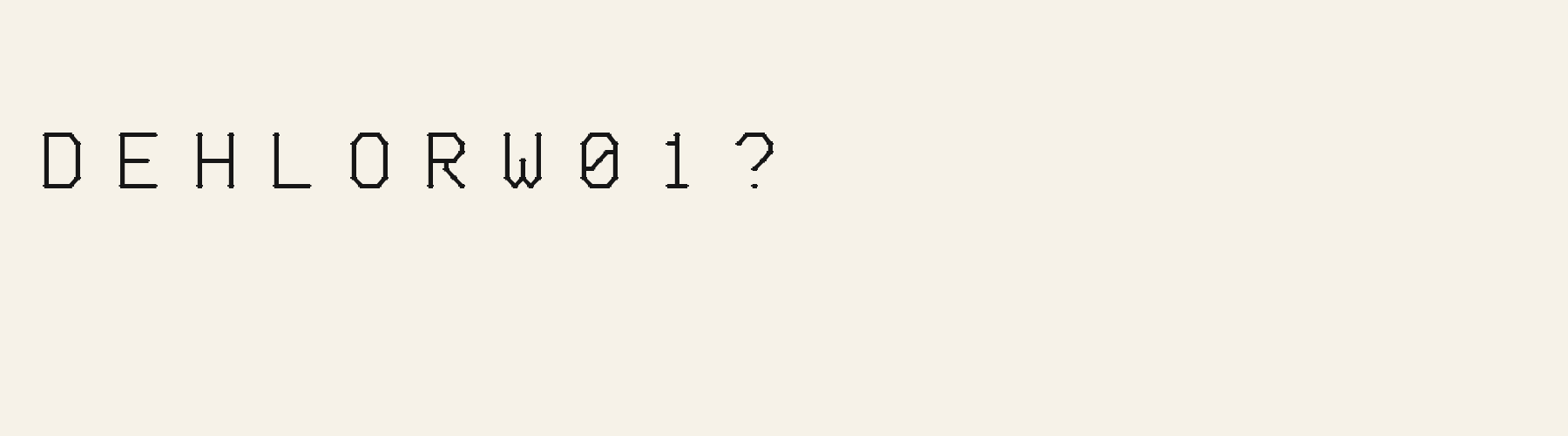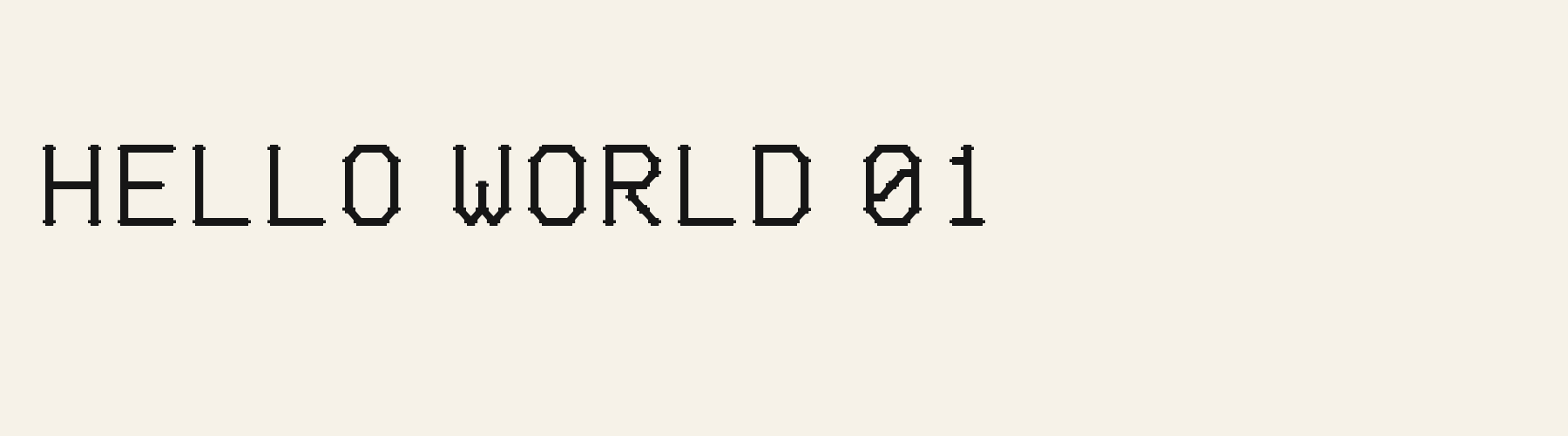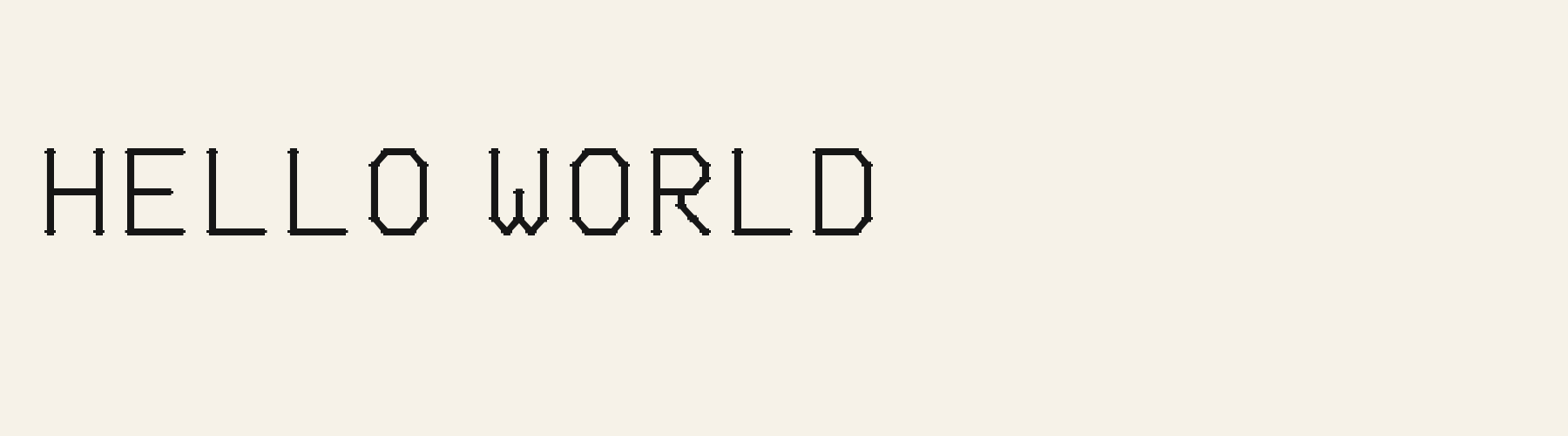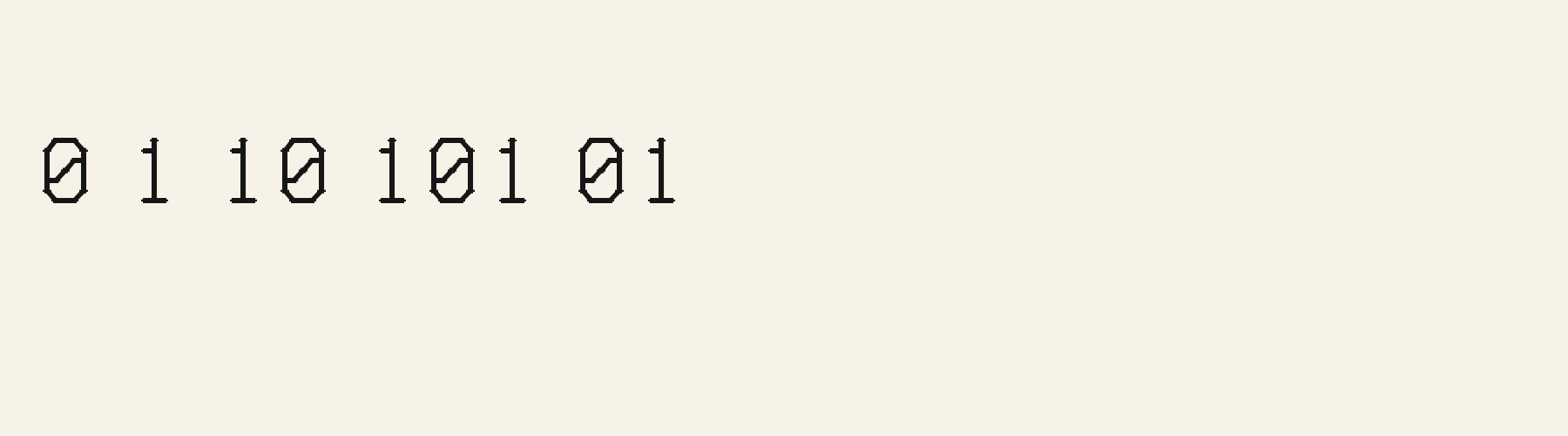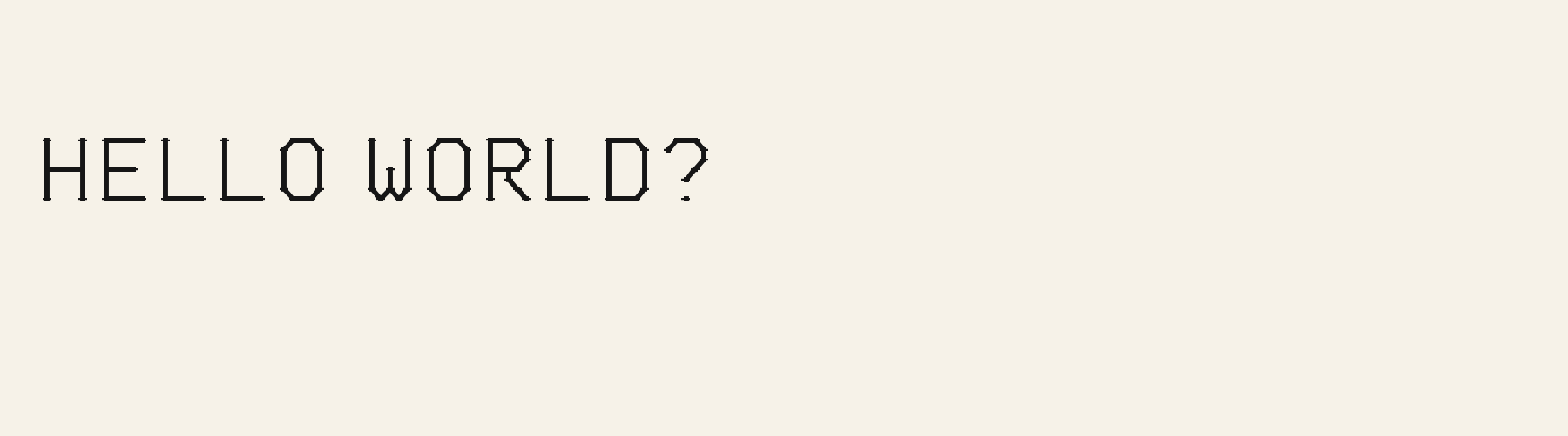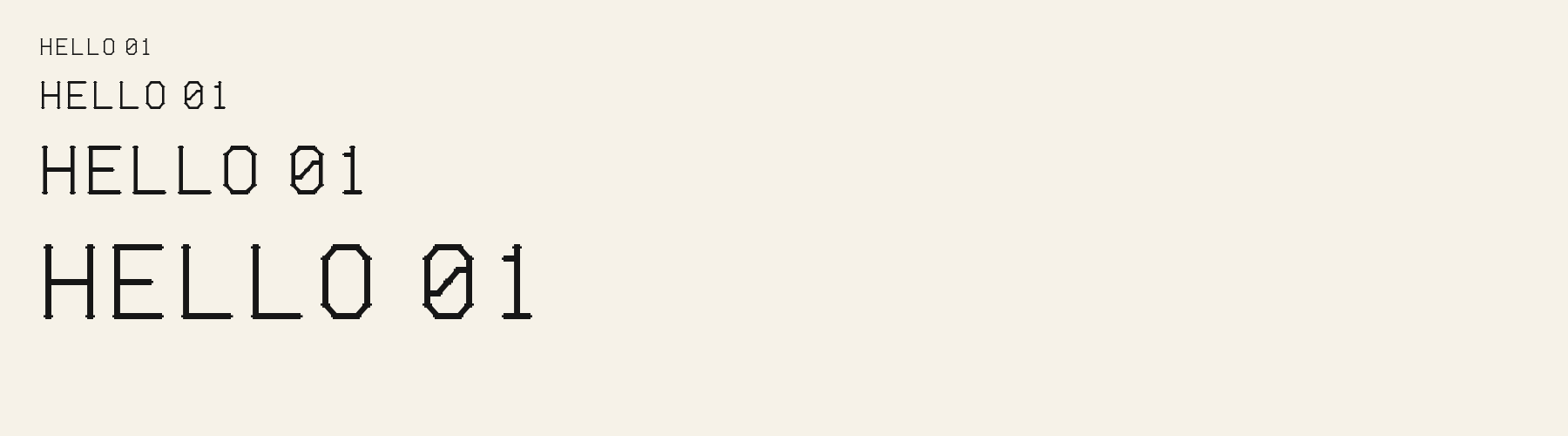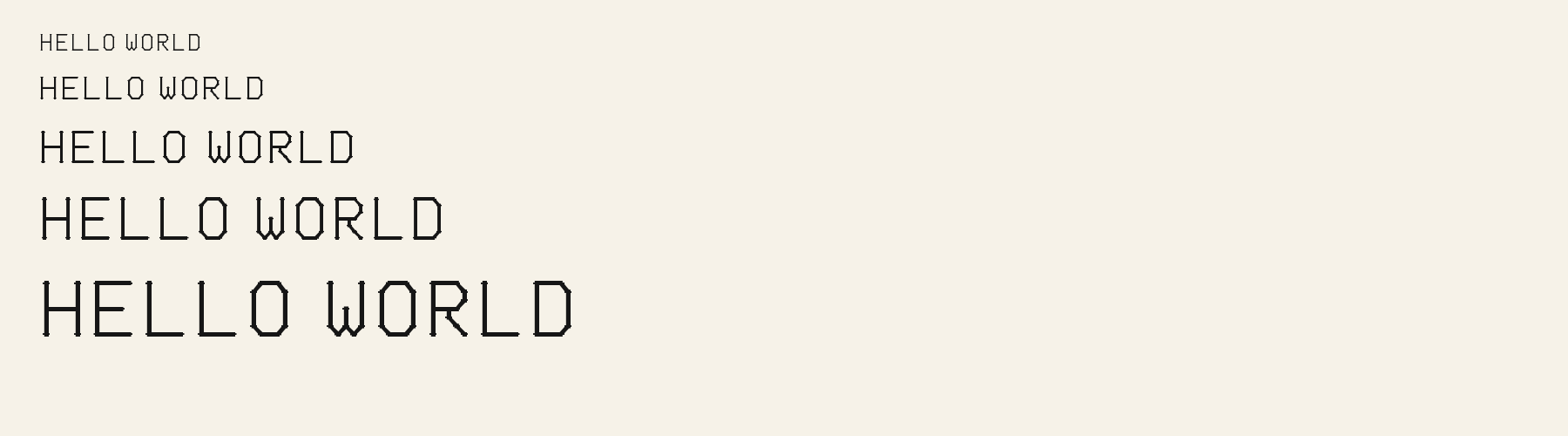
Mono Typewriter Slab Chamfered Console Lettering Font
Mono Typewriter Slab combines thin, even strokes with clipped corners and small, square terminal projections.
Chamfered Console Lettering Letterforms
Mono Typewriter Slab combines thin, even strokes with clipped corners and small, square terminal projections. The O has flat top and bottom sections connected to upright sides by diagonal cuts, leaving a broad, clear counter. The R repeats those clipped corners in its bowl, then sends a straight diagonal leg down from an angular join. The W is especially recognisable: upright outside strokes end in pointed lower turns around a short central stem. Broad letter bodies and generous surrounding space keep the line airy, while the rigid outlines give it a restrained, mechanical mood.
Check O against the slashed zero, the central stem of W, and punctuation in your actual wording. Compare smaller and larger previews for disappearing terminal details. These specimens show Latin capitals; inspect accented Latin and any other scripts separately with your intended text.
Try this face for short headings or labels beside a sans serif companion with smooth curves and fuller strokes. Those shapes could contrast with its clipped bowls and fine stems; compare an actual supporting paragraph before choosing the companion.
Mono Typewriter Slab: letterforms and layout
Compare smaller and larger previews to check whether the tiny terminal projections and angular joins stay distinct. Watch the central stem of W and the separation between the question mark and its dot.
Mono Typewriter Slab shows thin, even strokes, clipped bowl corners and small terminal projections. Its W has upright outer stems and low pointed turns, giving this wording a spare, mechanical character.
Manuscript Mono shows heavier strokes, rounded terminals and smoothly curved bowls. Its W uses diagonal strokes and prominent feet, giving the same wording a softer, more traditional typewritten character.
Mono Typewriter Slab font in use
Poster. The clipped O bowls and unusual upright W give a short poster title a clear mechanical character. DRY GOODS
Product label. Fine, even strokes and angular bowls suit a spare product label with plenty of open space around the wording. WIRED WORLD
Book or album cover. Repeated upright W forms and clipped bowls give this cover title a distinctive rhythm of stems and angular turns.
The scenes are illustrations drawn on this page with Mono Typewriter Slab itself, not client work.
About Mono Typewriter Slab
Its x-height is 69.4% of the cap height, near the 70.2% typical of monospace fonts in the library, lower than 19 of the 22 other monospace fonts. Ascenders on b, d, h, k and l line up with the capitals (100% of their height), and descenders on g, j, p, q and y drop 30.6% of the cap height below the baseline, deeper than 14 of the 22 other monospace fonts. It sets wide: an average lowercase letter, spacing included, is 93.1% as wide as the capitals are tall (an average capital, 93.1%), 8.3% more than the median for monospace fonts, so the same words take a longer line. The o is close to a circle, 1.00 times as wide as it is tall, and every capital has the same width. O stands exactly as tall as H and sits on the baseline, with no overshoot.
The letters stand upright, leaning less than 2.5° either way. Vertical stems measure 8.1% of the cap height, lighter than 16 of the 18 other monospace fonts. Ink covers 18.2% of each lowercase letter's box (its advance width by the cap height), lighter than 19 of the 22 other monospace fonts. Strokes keep one thickness in every direction: the sides of o and O measure the same as their tops and bottoms. Mono Typewriter Slab comes in Regular and Bold; Bold puts down 24% more ink than Regular.
Its 159 characters include 116 Latin letters, plus 43 figures, punctuation marks and symbols; 64 of the Latin letters are accented or special forms beyond A to Z. The word space measures 44.7% of the cap height, and the blank space either side of a lowercase letter takes up 29.2% of its width. The font carries no kerning, so spacing comes from each letter’s own side bearings. All ten figures share one width, so columns of numbers line up.
- What fonts pair well with Mono Typewriter Slab?
- Halo Light (sans serif), Geo Diagonal Aperture (sans serif) and Keyhole Counter Roman 3D (serif) are drawn on a different letter structure, so Mono Typewriter Slab can carry the headings while one of them sets the text. Each has its own page with a type tester for trying the pair.